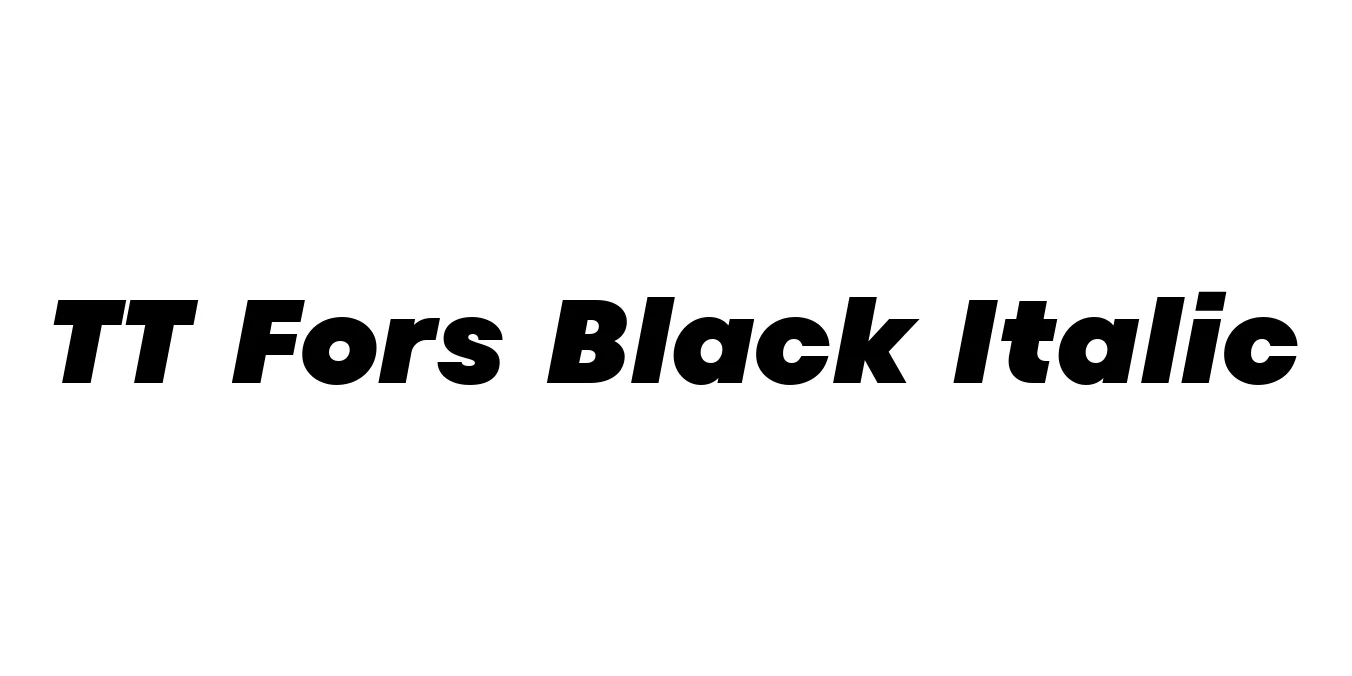
TT Fors Black Italic
Designed by TypeType Team
| Category | Geometric Sans Serif |
| Designer | TypeType Team |
TT Fors Black Italic is a product of the TypeType foundry’s extensive research into modern geometric sans-serifs. Designed to serve as a high-impact display face within the larger TT Fors family, it represents the pinnacle of the collection's weight range. The typeface was engineered to meet the demands of contemporary visual communication, where the fusion of functional geometry and expressive personality is essential for global branding projects and digital-first interfaces.
Technical analysis reveals a massive stroke weight that pushes the boundaries of the geometric model without sacrificing legibility. The x-height is generously proportioned, allowing the heavy letterforms to retain internal space, while the italic slant adds a sense of aerodynamic momentum. The terminals are precision-cut, and the ink traps are subtly integrated to prevent visual clogging at high ink densities. This weight demonstrates remarkable balance between its wide character proportions and the dynamic rhythm of its italicized forms.
TT Fors Black Italic Best Uses
Ideal for high-impact logos and identity systems for tech and lifestyle brands.
Perfect for oversized, aggressive headlines in editorial design and web banners.
Excellent for billboard and out-of-home media where maximum visibility is required.